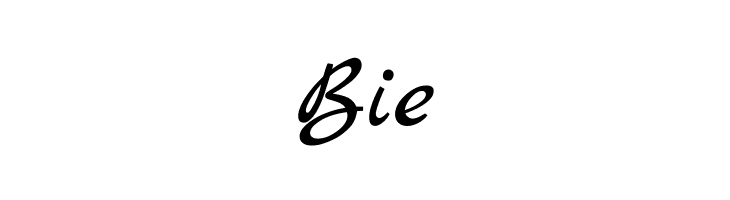
A thin, elegant font with elongated, narrow characters and a refined style.
A bold, fragmented font with geometric and modern design elements.
A playful, bold handwritten font with a whimsical and magical flair.
A modern, geometric font with bold, striped patterns and angular forms.
A modern serif font with a light weight and elegant style.
A bold, classic serif font with strong, elegant strokes.
A bold, serif font with strong strokes and a classic yet modern aesthetic.
A modern, elegant font with thin strokes and excellent readability.
A modern serif font with high contrast and bold strokes, offering elegance and readability.
A bold, rugged font with a distressed, vintage look.
A tall, narrow font with a sleek and modern design.
A bold, extra condensed font with high contrast and minimal spacing.
A bold, extra condensed font with a modern and impactful style.
A modern, extra condensed semi-bold font with excellent legibility and a sleek design.
A modern, extra condensed typeface with uniform stroke width and high legibility.
A modern, extra condensed sans-serif font with a sleek, minimal design.
A modern, extra-condensed sans-serif font with thin strokes and high legibility.
A modern, condensed typeface with a sleek and minimalist design.
A bold, extra-condensed font ideal for impactful headlines and titles.
A sleek, modern, extra condensed font with a minimalist design.
A modern, semi-expanded sans-serif font with clean lines and balanced proportions.
A modern, light, semi-expanded sans-serif font with clean lines and balanced spacing.
A bold, semi-expanded sans-serif font with strong visual impact.
A bold, semi-expanded sans-serif font with a modern and clean design.
A modern sans-serif font with semi-expanded proportions and a semi-bold weight.
A modern, semi-expanded sans-serif font with an extra light weight and clean design.
A modern, geometric sans-serif font with a clean and minimalistic design.